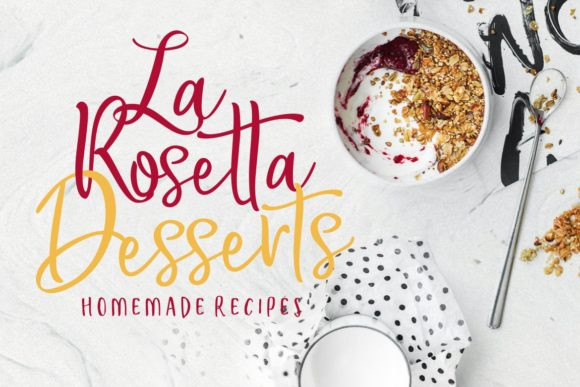
Bird House Handwritten Font
Bird House is a handwritten font designed using markers. This font perfect for branding, signature, and more. It includes uppercase, lowercase standard character, punctuation and multiple language support.
Designer Name: | Angga Mahardika |
Classification: | Brush, Handwritten, Script |